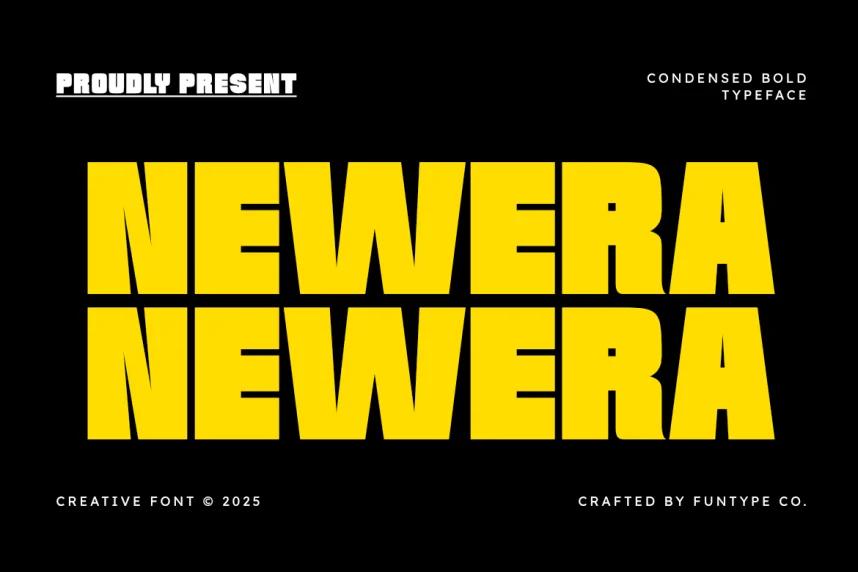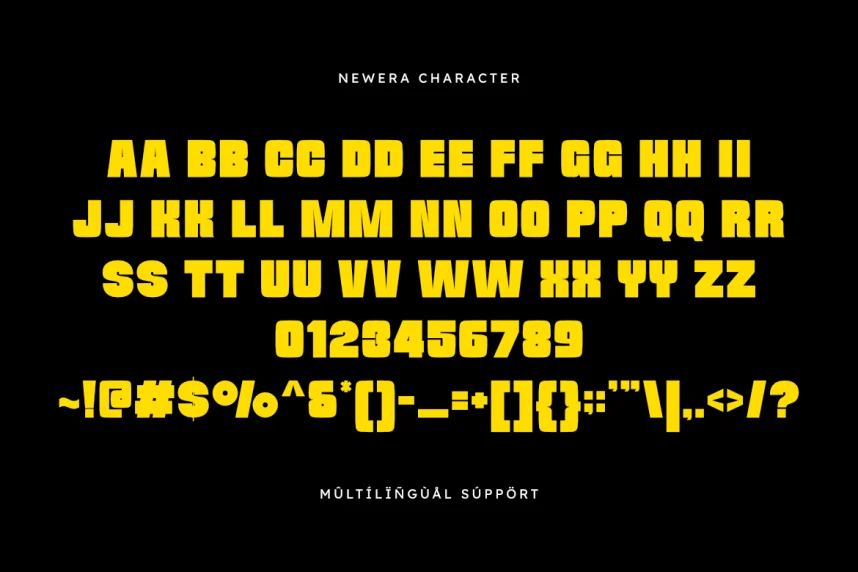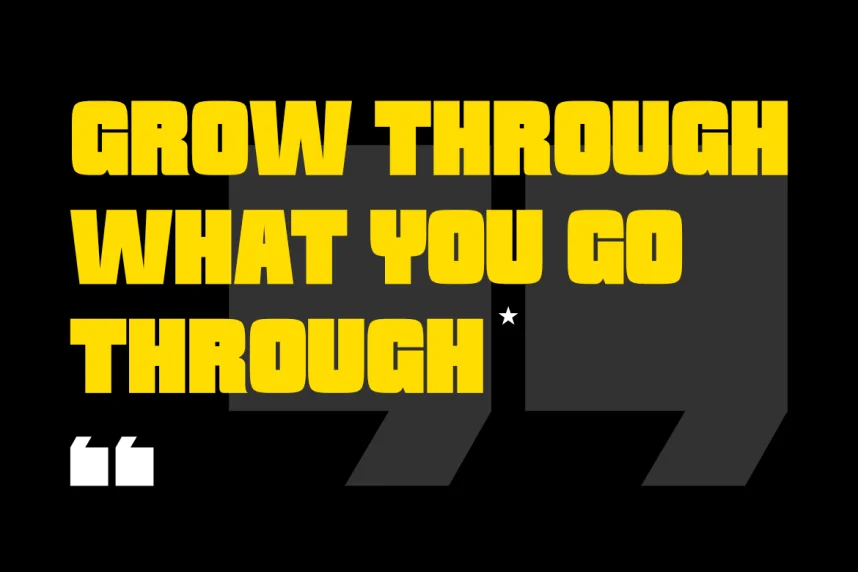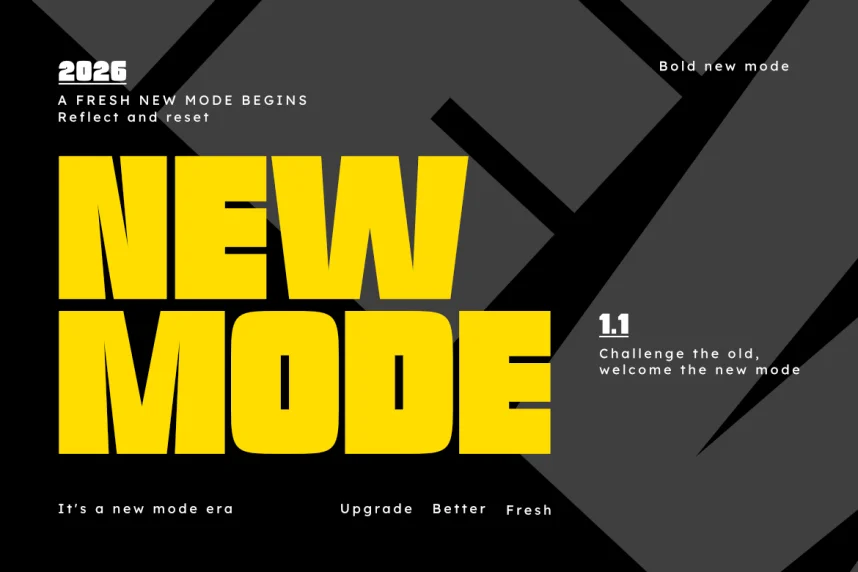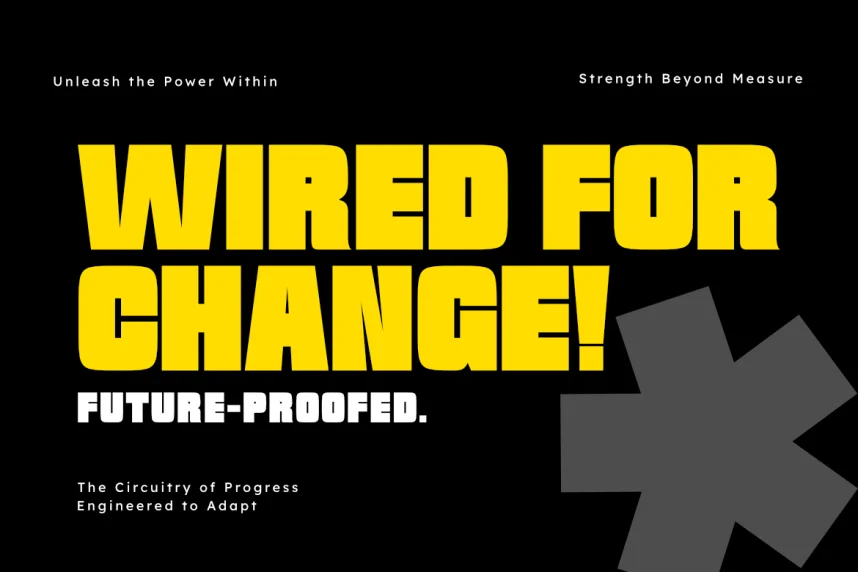
Newera Font helps designers maintain modern visual consistency across branding and digital interfaces. Many contemporary fonts fail when scaled across different screen sizes.
Newera is a modern sans-serif font with geometric shapes and balanced spacing. Stroke contrast remains low, improving readability for headings and short body text. The design supports clean, professional layouts.